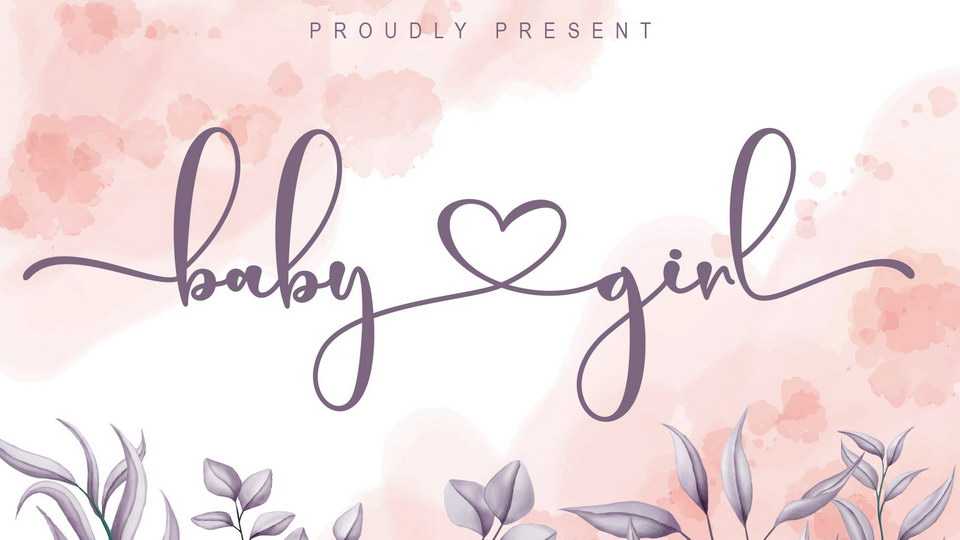
Download Baby Girl font, a modern handwritten typeface with an incredibly friendly feel. Whether you’re looking for fonts for Instagram or calligraphy scripts for DIY projects, Baby Girl will turn any creative idea into a true piece of art.
Designer: Thomas Aradea